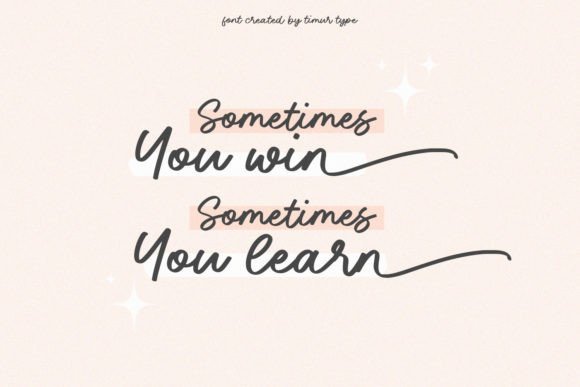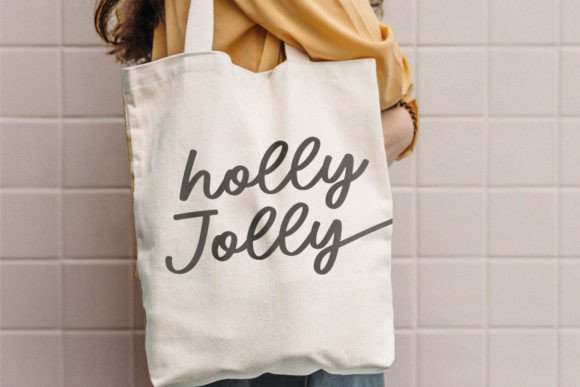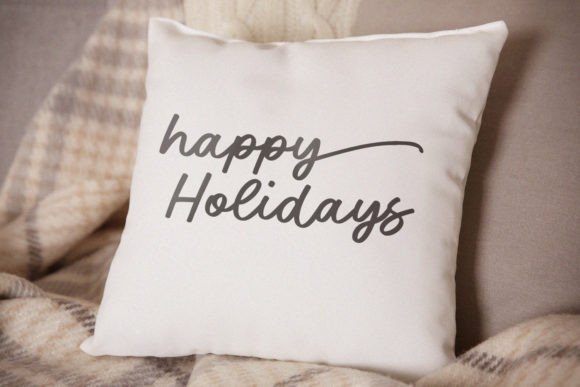
Bigbutter Font
Bigbutter – A Handwritten Script Font created with great care, especially for you 😊 Bigbutter is perfect for product packaging, branding project, magazines, social media, weddings, or just used to express words above the background. This font is PUA encoded, which means you can access all of the glyphs and swashes with ease!